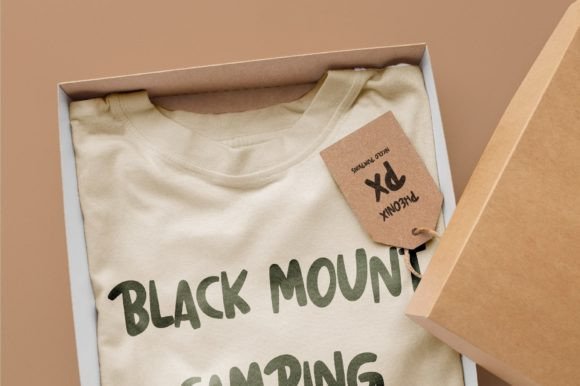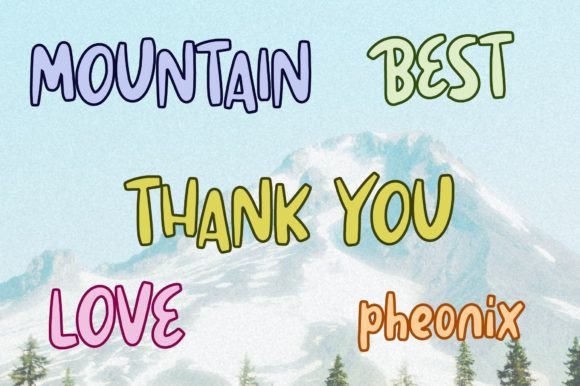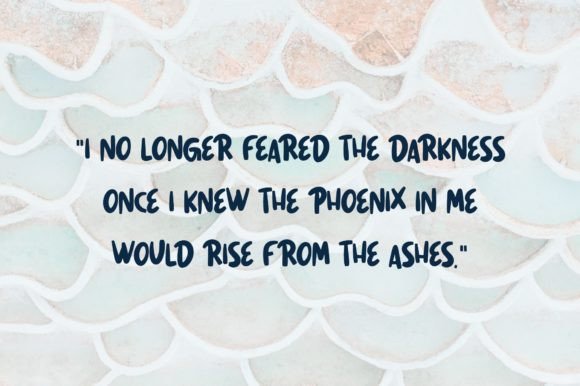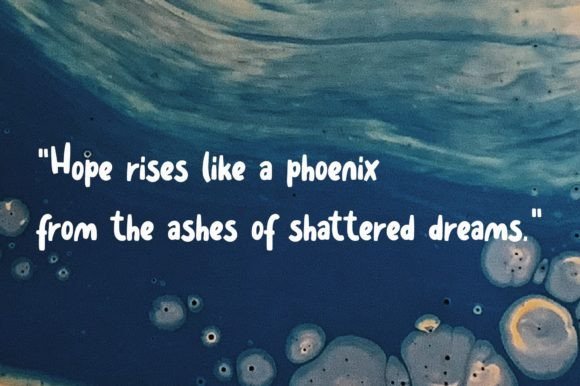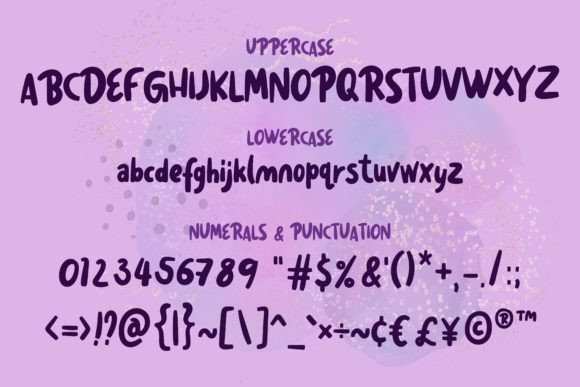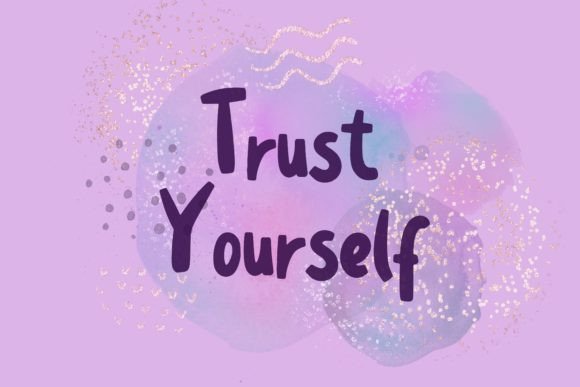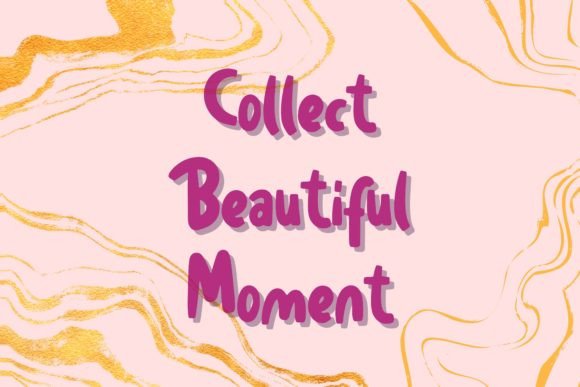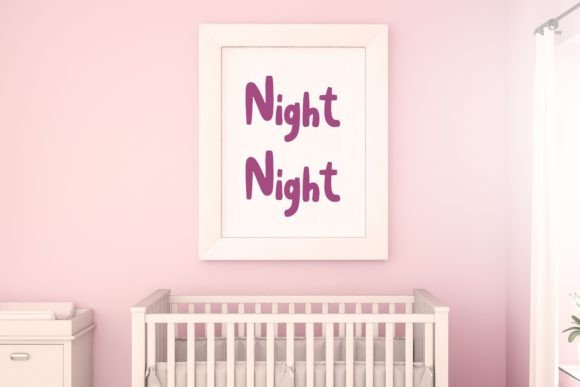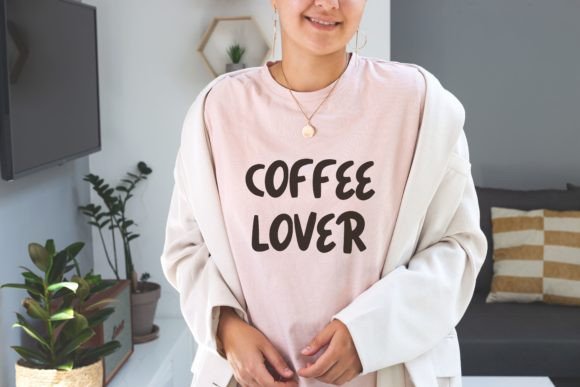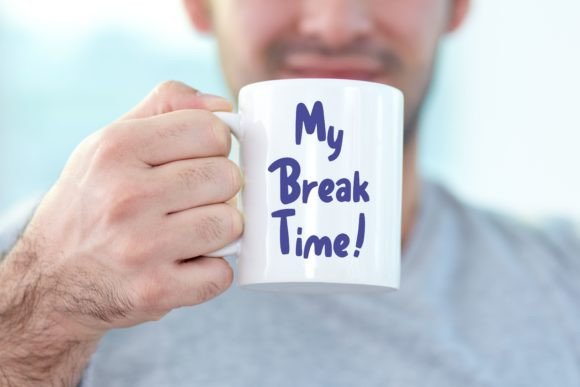
Pheonix Font
About Pheonix Font
Pheonix, a cute, modern, and friendly handwritten font, is a versatile and stylish choice for a range of creative projects. Whether you’re crafting quotes, logos, or any lettering product, Pheonix brings a contemporary and approachable touch to your designs.
The cute and friendly features of Pheonix make it suitable for a variety of design applications, infusing a sense of style and approachability into your text. The handwritten style adds a personal and authentic touch to your projects, enhancing their visual appeal.
Pheonix is designed to make your creative ideas stand out with its clean and modern aesthetic. Its versatility allows it to seamlessly adapt to different contexts, making it a valuable asset for expressing creativity in various design projects.
Incorporate Pheonix into your lettering projects and witness how it elevates your creative ideas. Let its cute, modern, and friendly character be the key element that makes your designs stand out and captures the attention of your audience. Whether you’re designing for print or digital media, Pheonix is a font that brings a contemporary and friendly energy to various design applications. Add it confidently to your projects, and you will love the results!